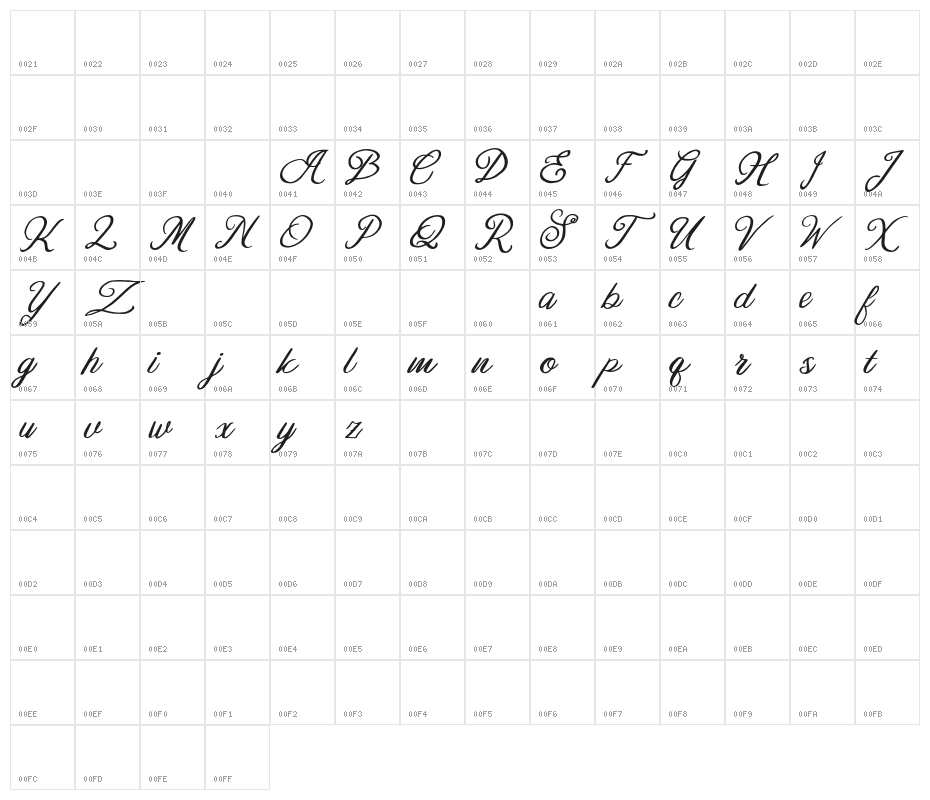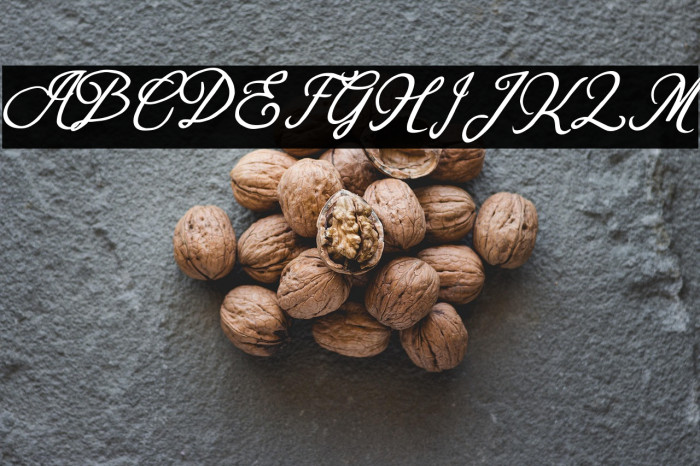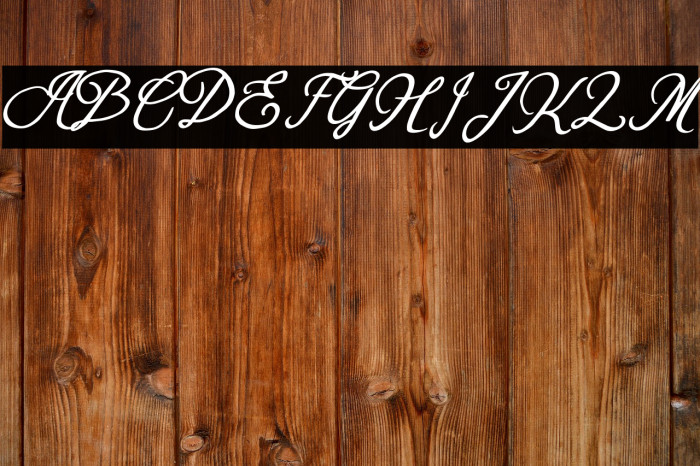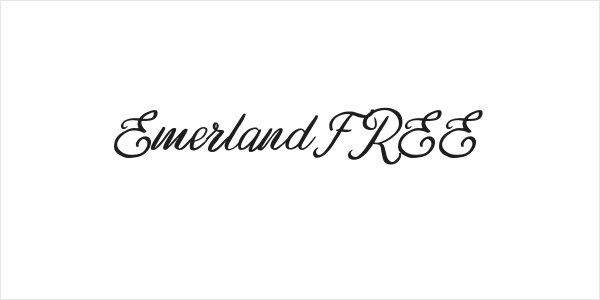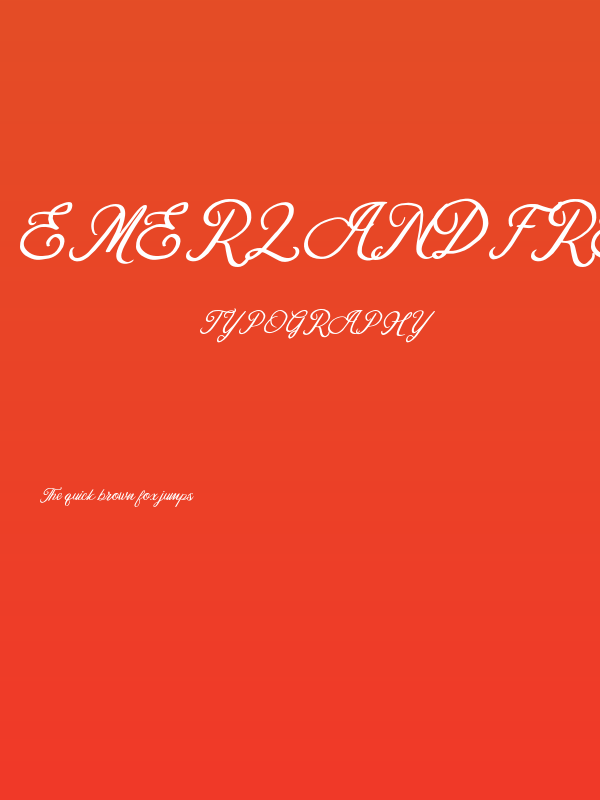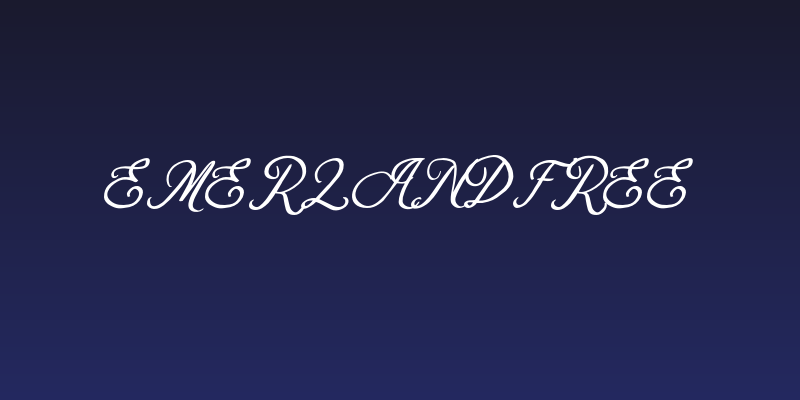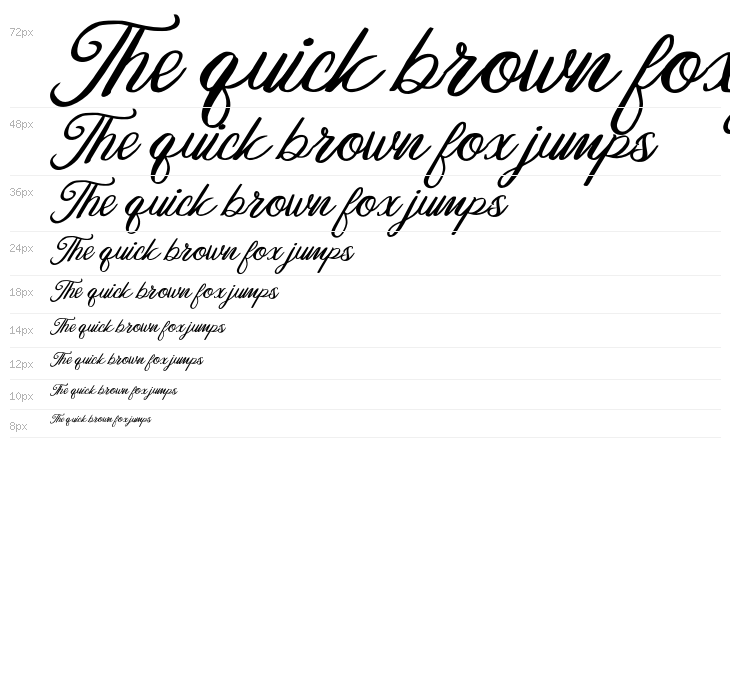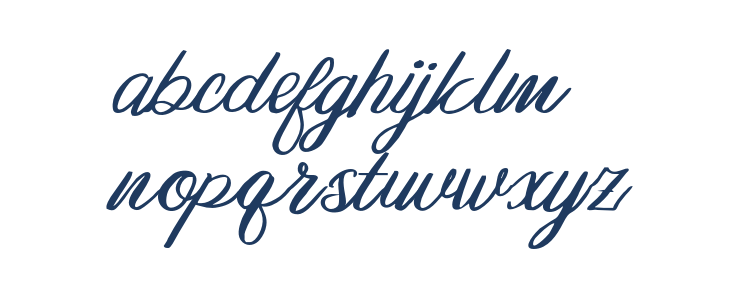
EmerlandFREE Font
EmerlandFREE Description
This elegant script font features flowing, interconnected letters that evoke a sense of sophistication and grace. The uppercase characters are ornate, with intricate loops and flourishes, while the lowercase letters maintain a consistent, smooth flow. The font's design is reminiscent of traditional calligraphy, offering a classic yet modern appeal. Its high contrast between thick and thin strokes adds to its visual interest, making it suitable for decorative purposes. The font's overall style is both timeless and versatile, perfect for projects that require a touch of elegance.
| Use Case | Logos, Invitations, Decorative headlines |
| Proposed Projects | Ideal for wedding invitations, elegant branding, greeting cards, and decorative headlines. |